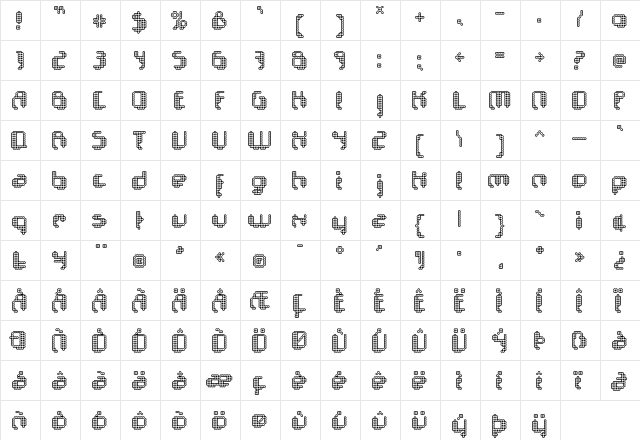
Chemo BubbleDotStroke
Design Context for Chemo Typeface
Chemo is rooted in pixel-grid construction, making it a natural fit for game UI, retro computing aesthetics, and digital nostalgia projects.
A natural choice for retro game titles, chiptune music branding, 8-bit UI, and digital nostalgia projects.
Pro Tip: Pair Chemo with flat colour palettes and simple geometric UI elements to reinforce its digital aesthetic.